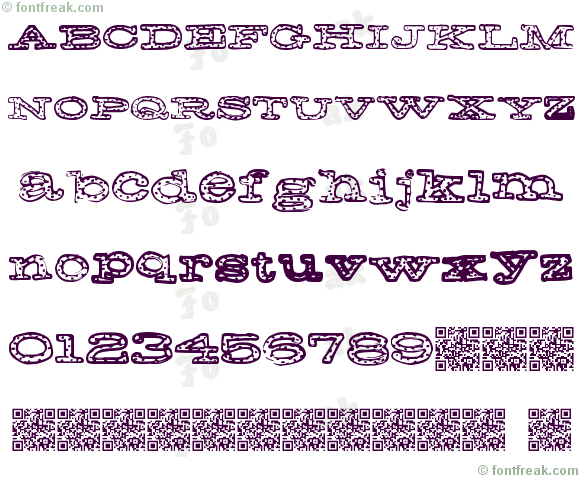
FreckleJackson
About FreckleJackson
FreckleJackson is a unique display font designed by XEROGRAPHER FONTS, released in 2013. This font falls into the decorative category, characterized by its playful and whimsical style. The FreckleJackson font features a distinctive hand-drawn aesthetic, with irregular stroke weights that add a charming, organic feel to each letter. The letters are adorned with small, freckle-like embellishments that enhance their character while maintaining legibility. The spacing is well-balanced, allowing for easy reading, making it suitable for various applications.
This font is perfect for a range of creative projects. It shines in wedding invitations, where its charming appearance can evoke a sense of joy and celebration. Additionally, FreckleJackson is an excellent choice for children's book covers, offering a fun and inviting look that appeals to young readers. Graphic designers can use this font for crafting eye-catching posters or flyers, particularly in artsy or casual contexts. Restaurant menus can also benefit from its playful vibe, making the dining experience feel more relaxed and welcoming. Small business owners looking to create a unique brand identity will find FreckleJackson suitable for logos and promotional materials, helping to convey a friendly and approachable image.
The target audience for FreckleJackson includes graphic designers, small business owners, and content creators who seek to infuse their work with a sense of personality and creativity. The FreckleJackson font free download offers an accessible way to incorporate this distinctive typeface into various projects without licensing concerns. This font stands out due to its charming, handcrafted quality and versatility, making it an ideal choice for anyone looking to add a touch of whimsy and originality to their designs.